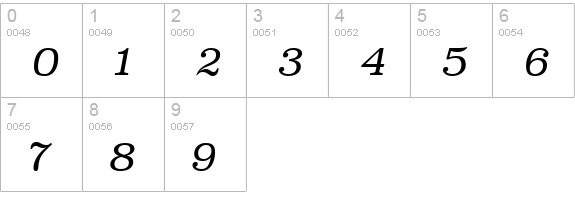
Superclarendon Lt Italic Font Details
Superclarendon Lt Italic is a distinctive, italic variant in the Superclarendon typeface family \xE2\x80\x94 well suited to design and typography projects.
Superclarendon Lt Italic is an elegant and versatile typeface that exudes sophistication and modernity. Its slanted letters add a touch of flair and dynamism to any design project. The sleek and stylish curves of this font make it perfect for creating a contemporary and professional look. What sets Superclarendon Lt Italic apart is not only its visual appeal but also its accessibility. This font is available for free download at FontsMarket.com, making it a valuable resource for designers, artists, and creatives seeking high-quality typography without breaking the bank. Whether you're working on a branding project, editorial design, web design, or any other creative endeavor, Superclarendon Lt Italic is sure to elevate your work with its modern aesthetic and impeccable readability. Download this font today and unlock a world of design possibilities at your fingertips.